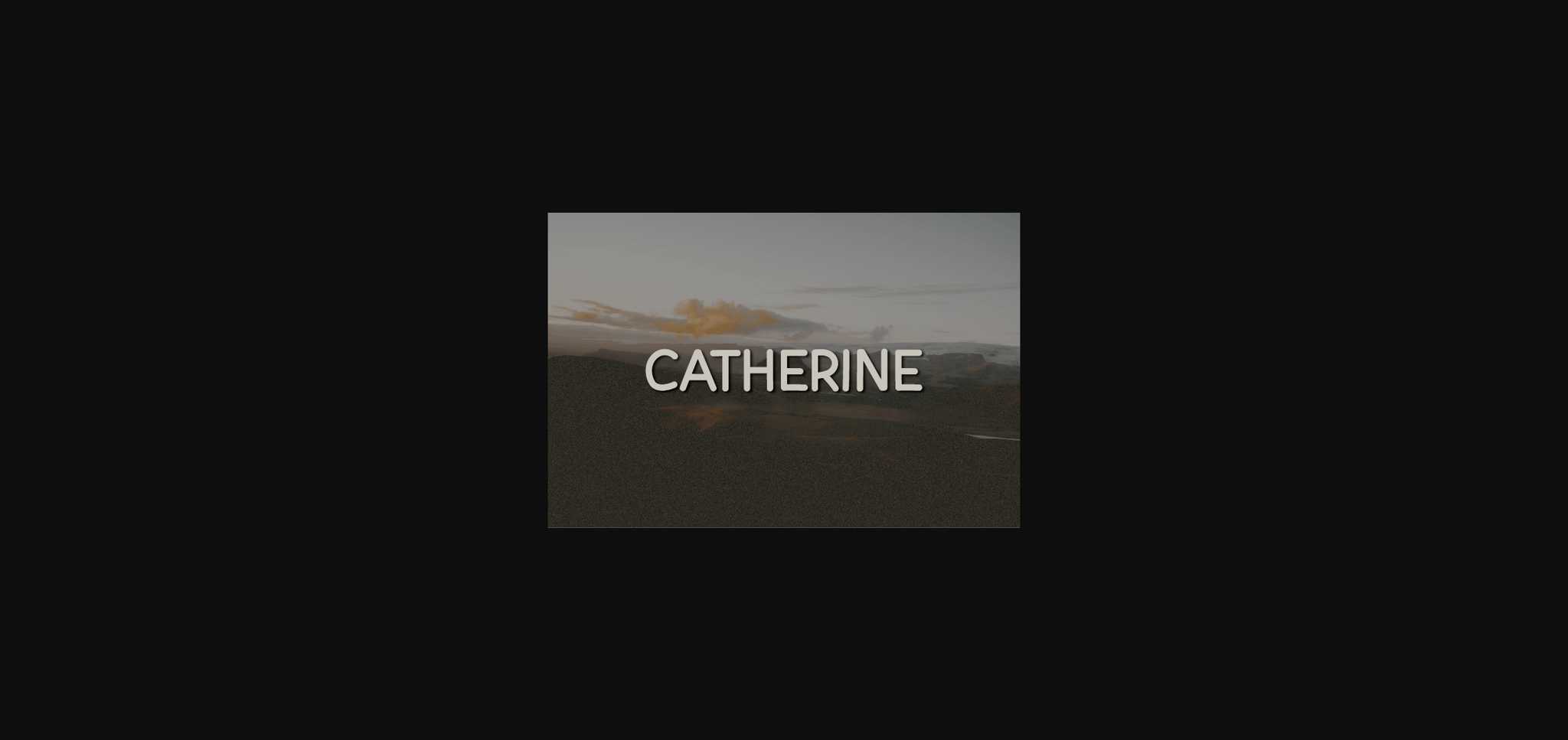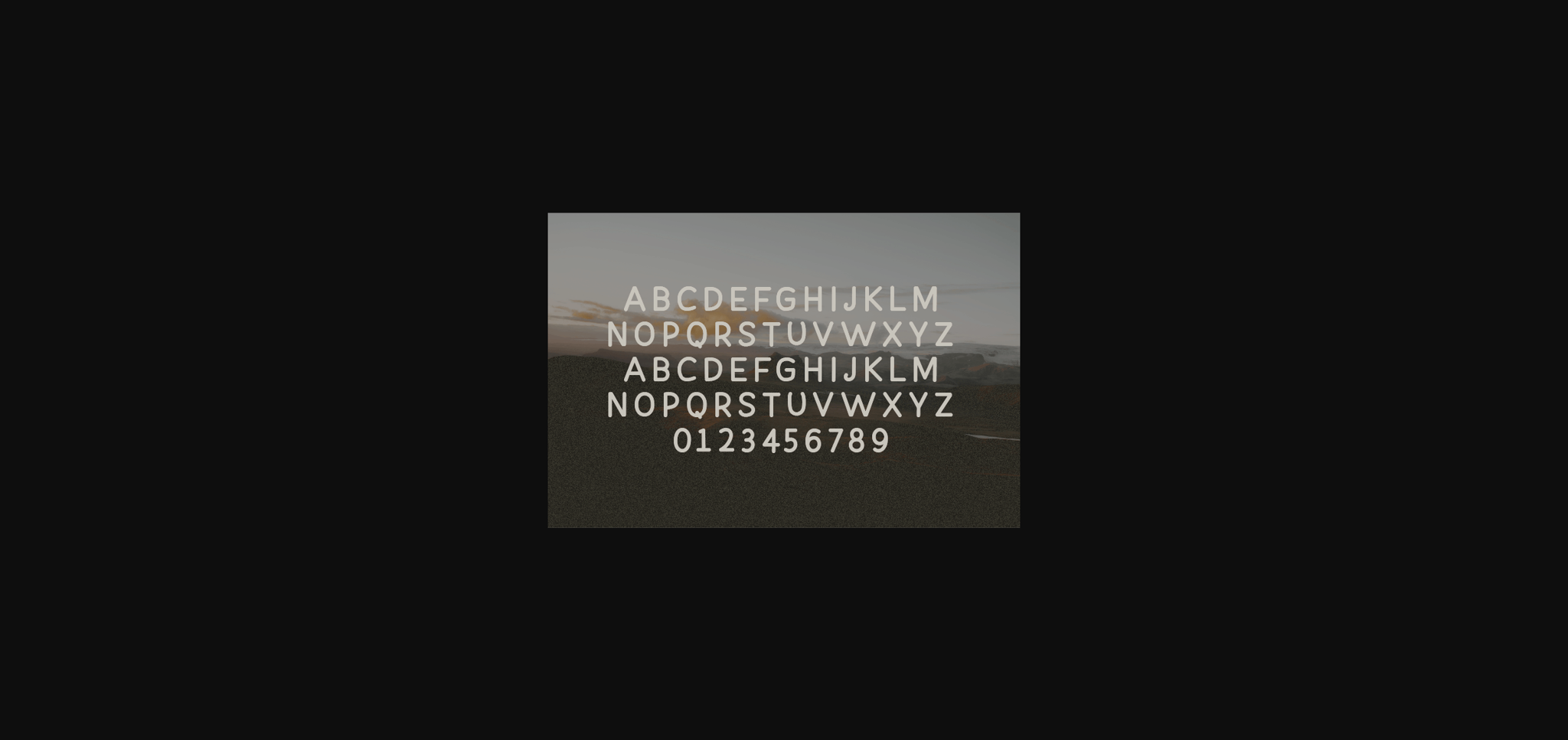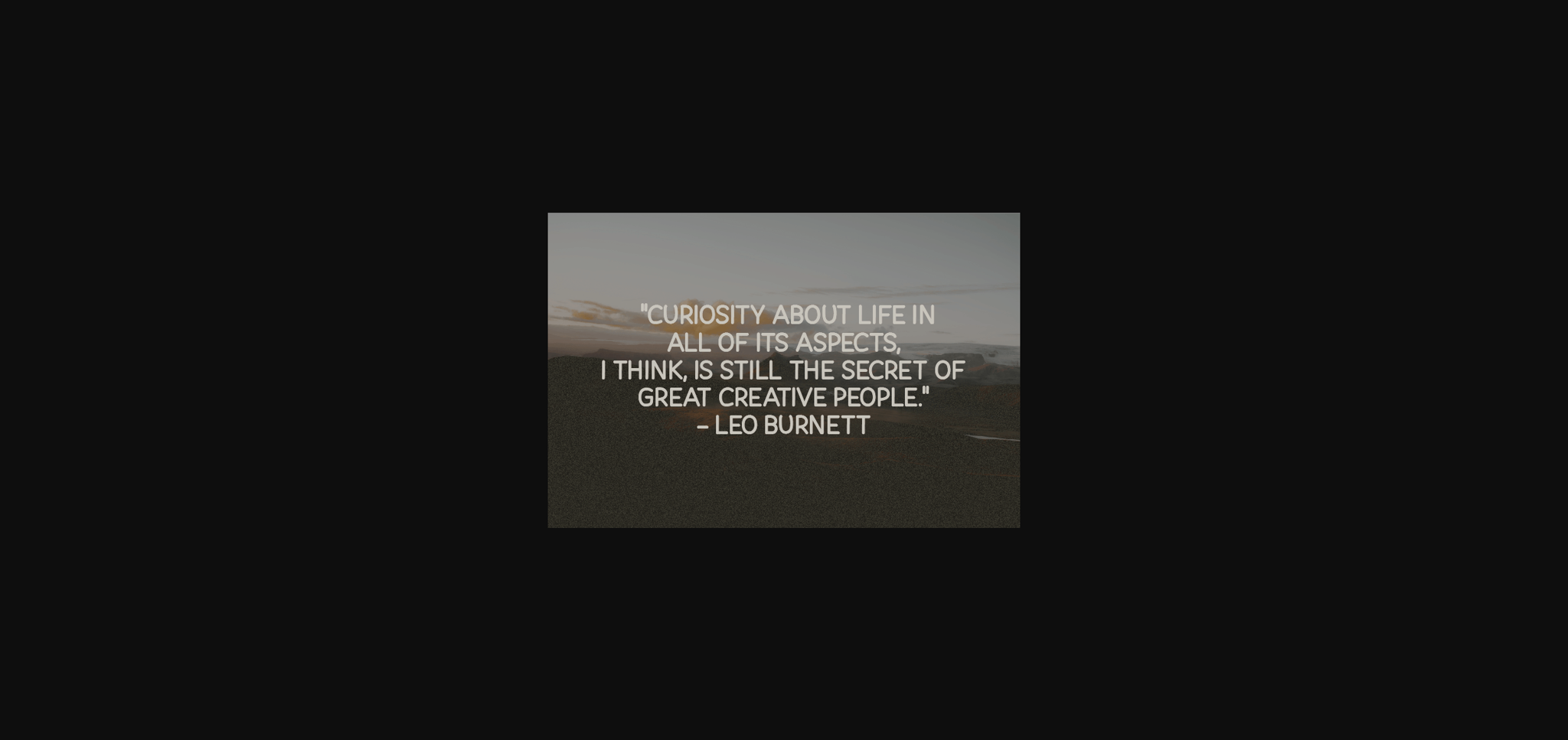
HomeSans Serif FontsCatherine Font Sans Serif Fonts Catherine Font FacebookXPinterestWhatsApp 1 of 6 ... Catherine Font Poster 2... Catherine Font Poster 3... Catherine Font Poster 4... Catherine Font Poster 5... Catherine Font Poster 6... About Catherine Font Catherine is a natural sans serif font made without changing a single node in each character’s indentation- this makes this font very interesting and unique. Perfect for quotes, notes, tees, and any product design. DOWNLOAD NOW People also explored Maudhia Font Boslow Font Satriya Font Baby Chubby Font Felicia Font Falviola Font Centabre Font King David’s Font Roseberry Font 292 0 TagsCatherine Font Previous articleSunwaves FontNext articleHermeson Font LEAVE A REPLY Cancel reply Comment: Please enter your comment! Name:* Please enter your name here Email:* You have entered an incorrect email address! Please enter your email address here Website: Save my name, email, and website in this browser for the next time I comment. Personal Use Free Arnitta Callina Personal Use Free Read more about this font Peachy Rose Personal Use Free Read more about this font Midnight Show Personal Use Free Read more about this font Hello Sarrah Personal Use Free Read more about this font BLOG How to Install and Use Fonts on Windows, macOS, and Web Projects How to Install and Use Fonts on Windows, macOS, and Web Projects Fonts are a crucial part of design and branding. Whether you’re designing a... Modern Sans-Serif Fonts That Brands Love in 2025 5 Fonts That Will Dominate Design Trends in 2026 Where to Buy American Fonts Online in 2024